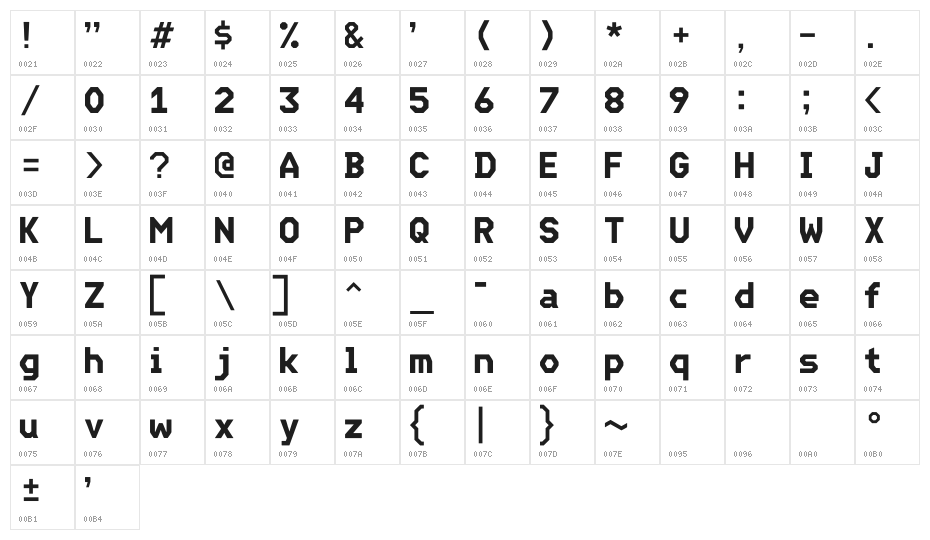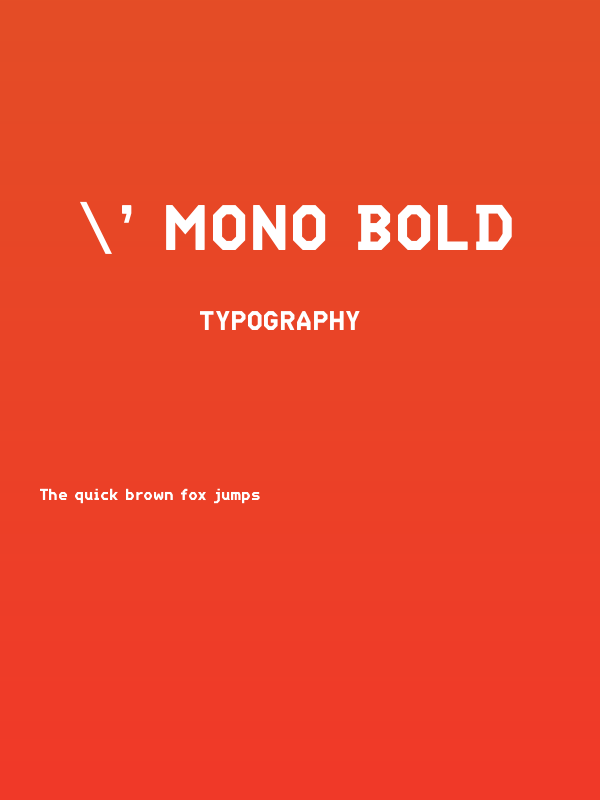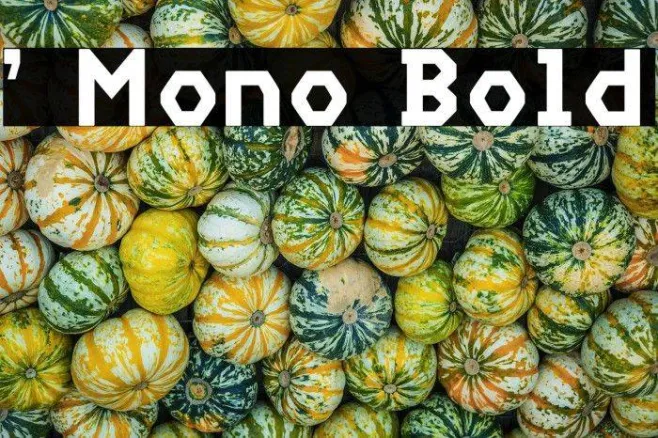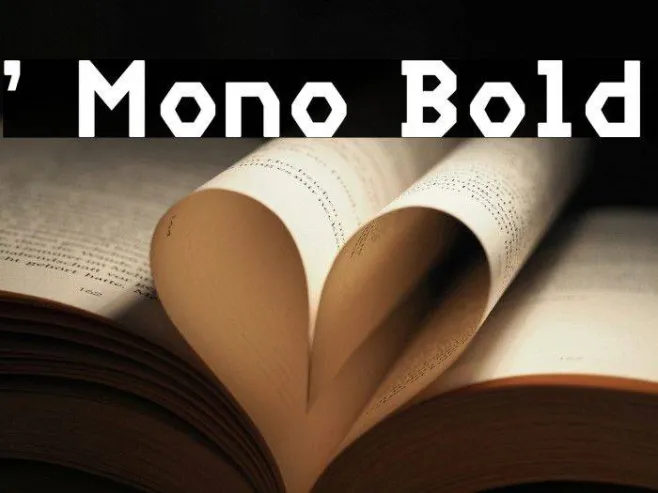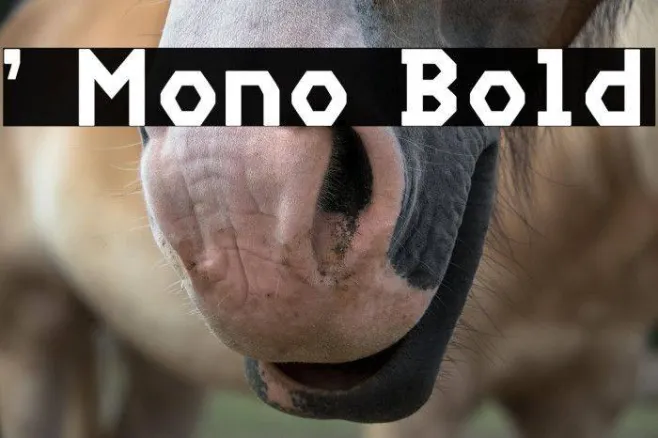
' Mono Bold Font
' Mono Bold Description
This font features a bold, monospaced design with a geometric and angular style. Each character is uniformly spaced, providing a clean and structured appearance. The uppercase and lowercase letters maintain a consistent width, enhancing readability and creating a cohesive look. The numerals and special characters are designed with the same boldness and geometric precision, making them stand out clearly. This font's strong presence and uniformity make it ideal for technical or modern applications where clarity and precision are paramount.
| Use Case | Headlines, Coding, Technical documentation |
| Proposed Projects | Ideal for coding environments, technical documentation, modern branding, and digital interfaces. |